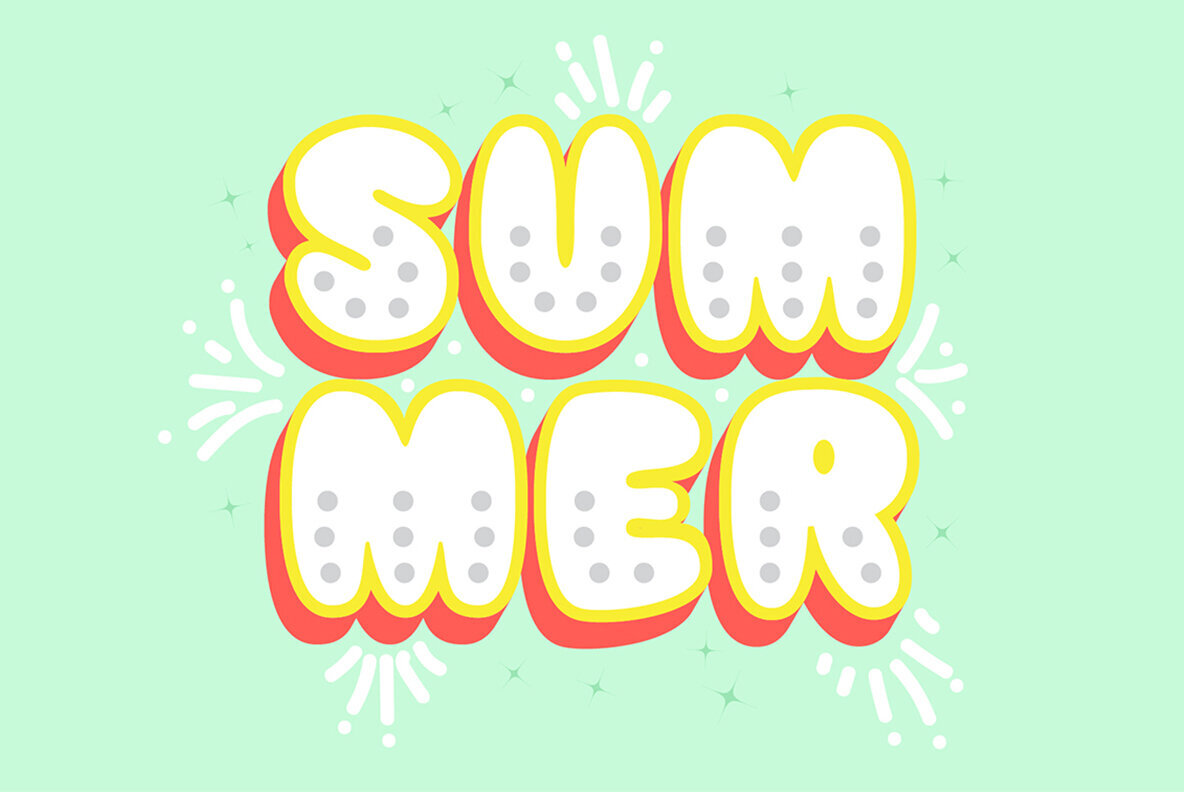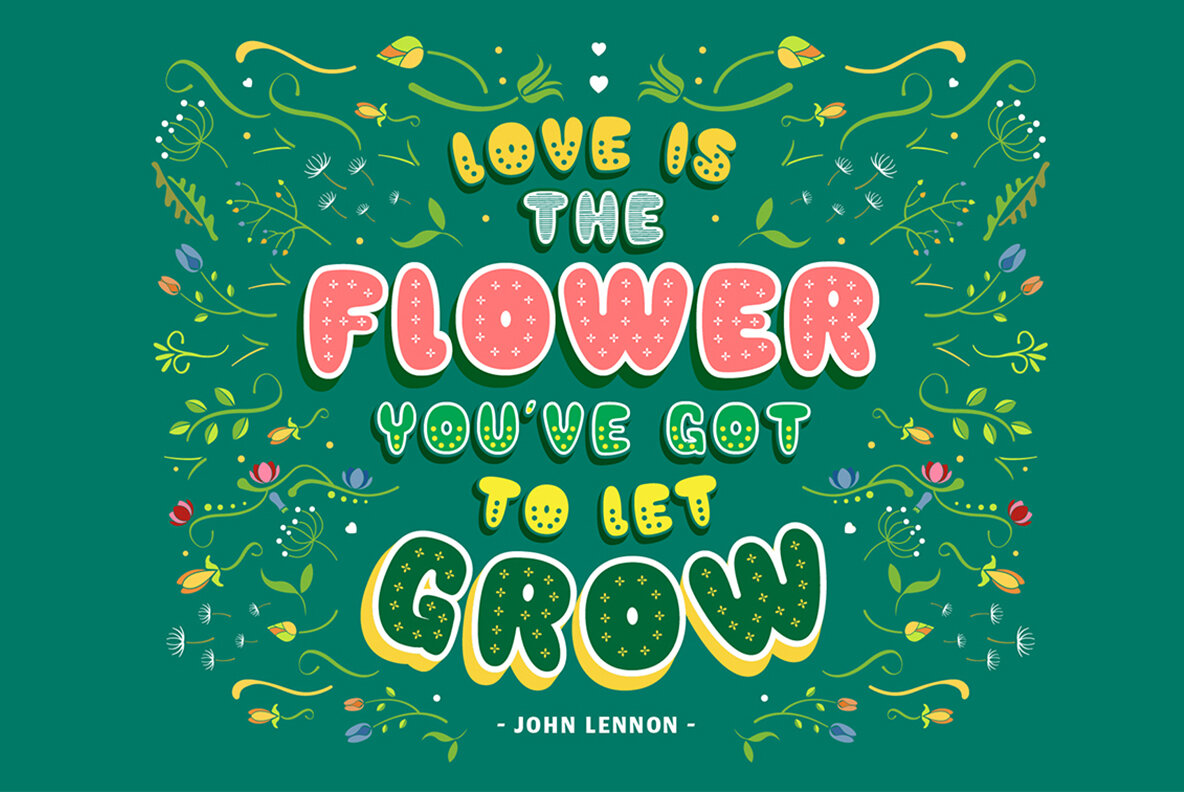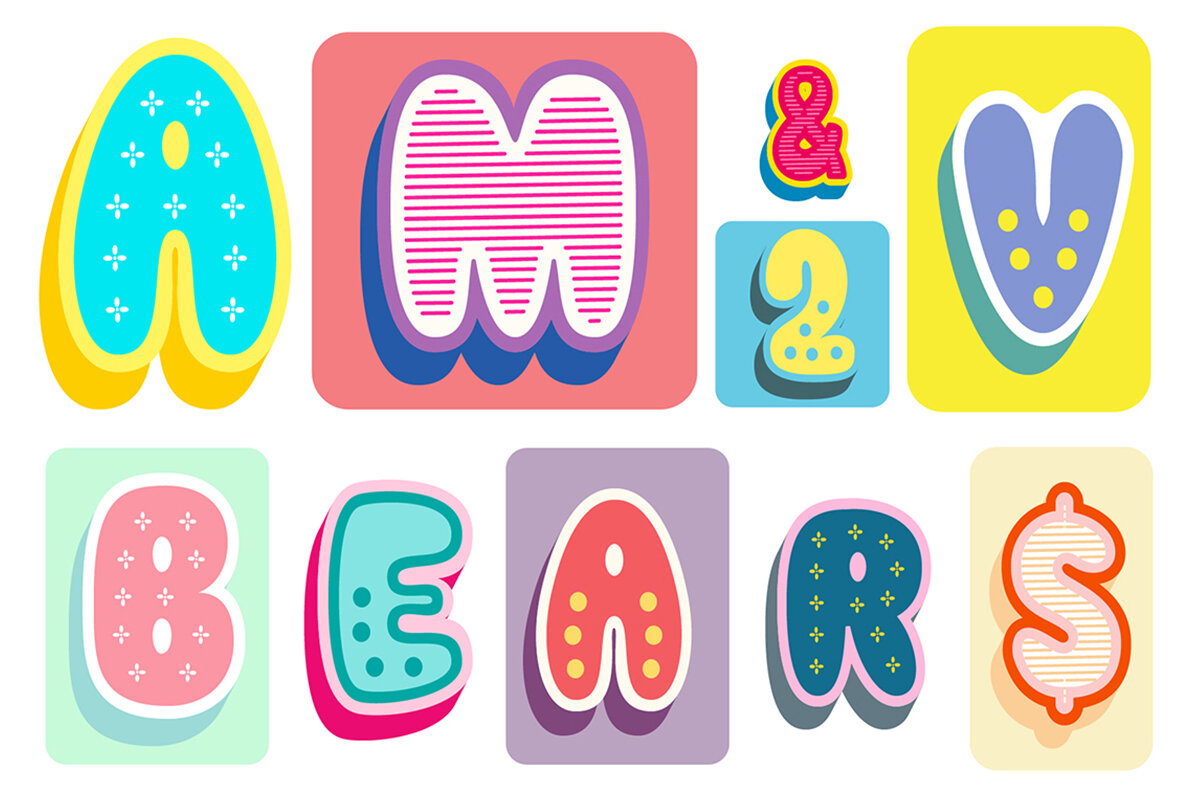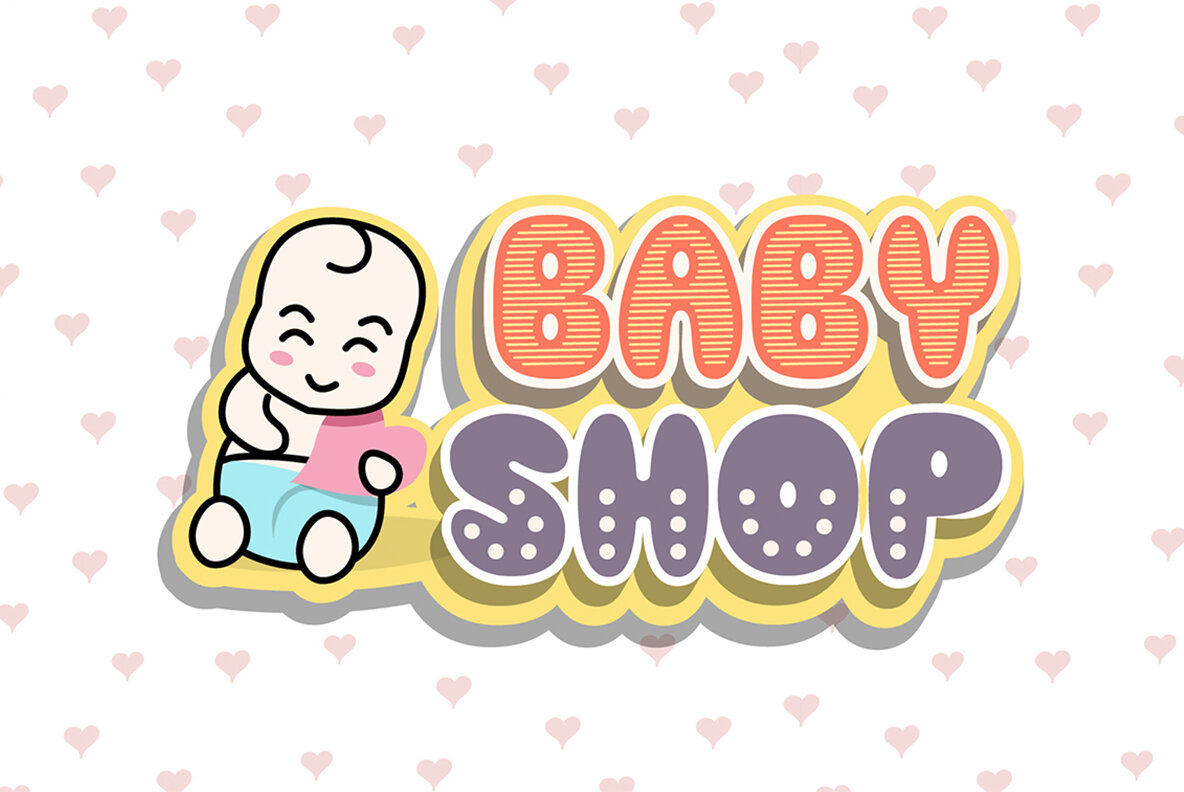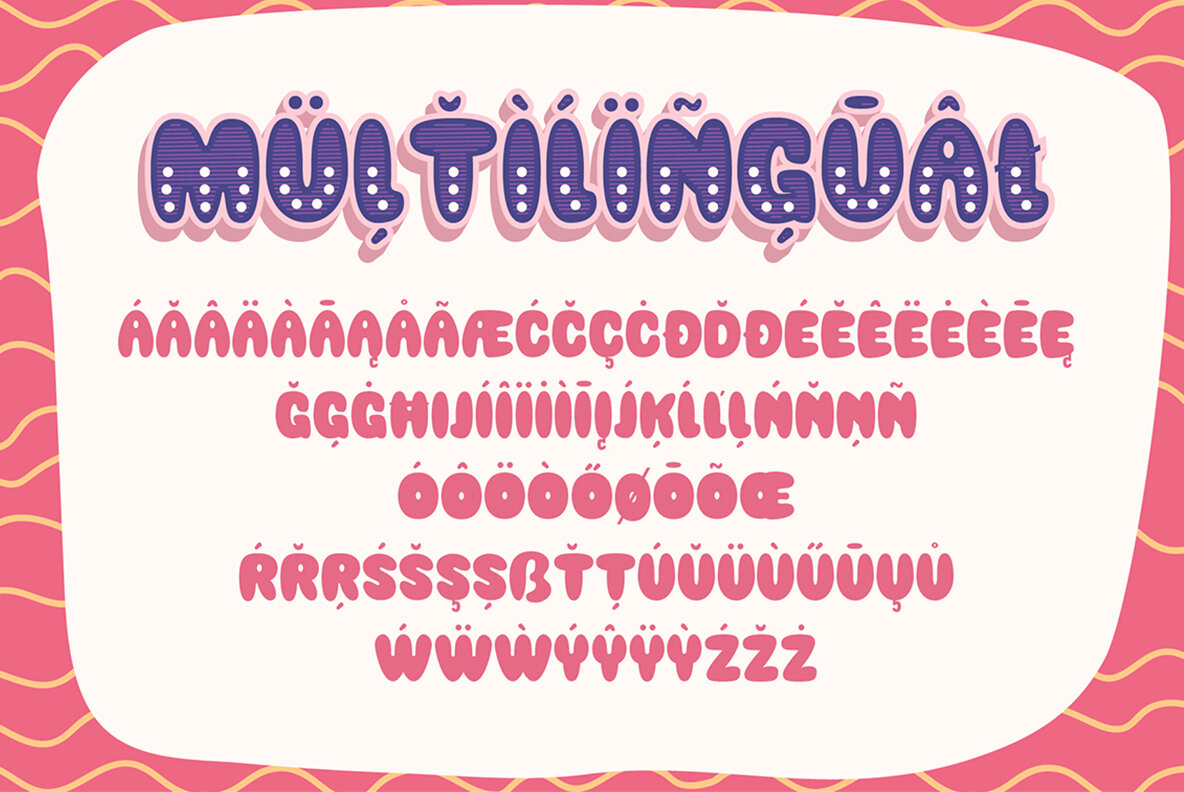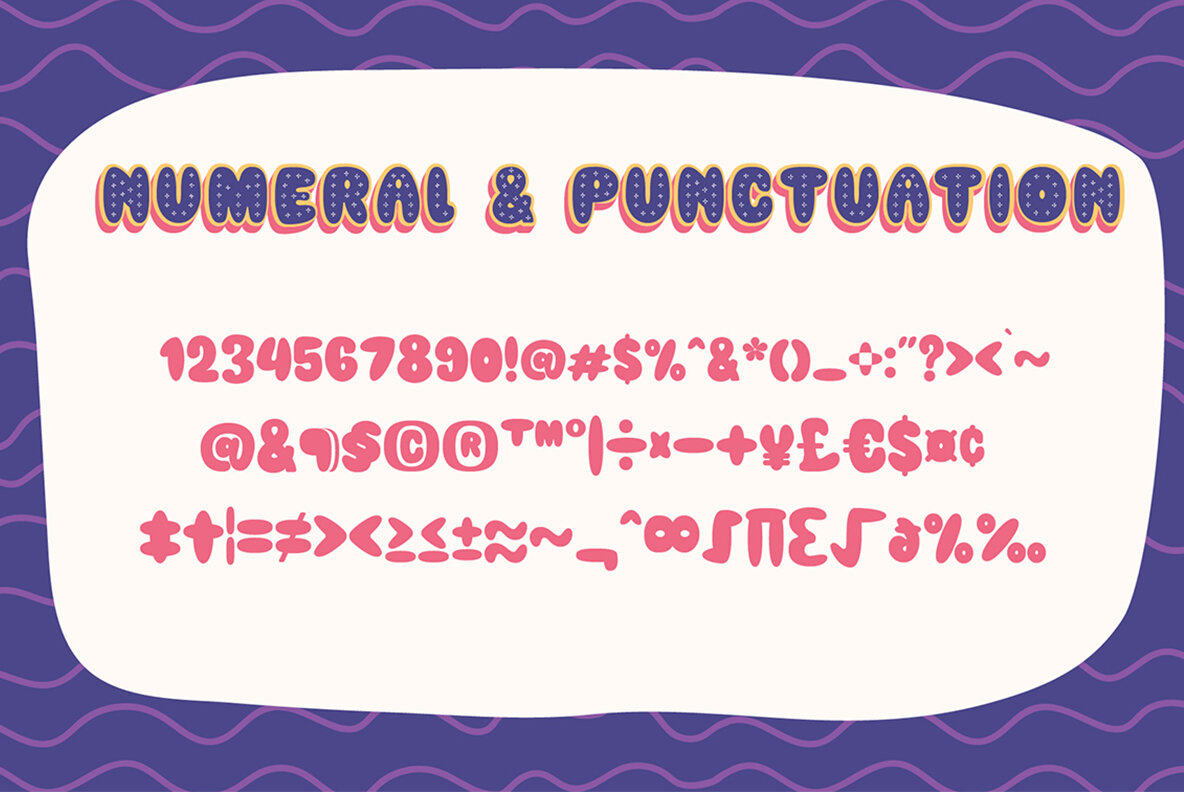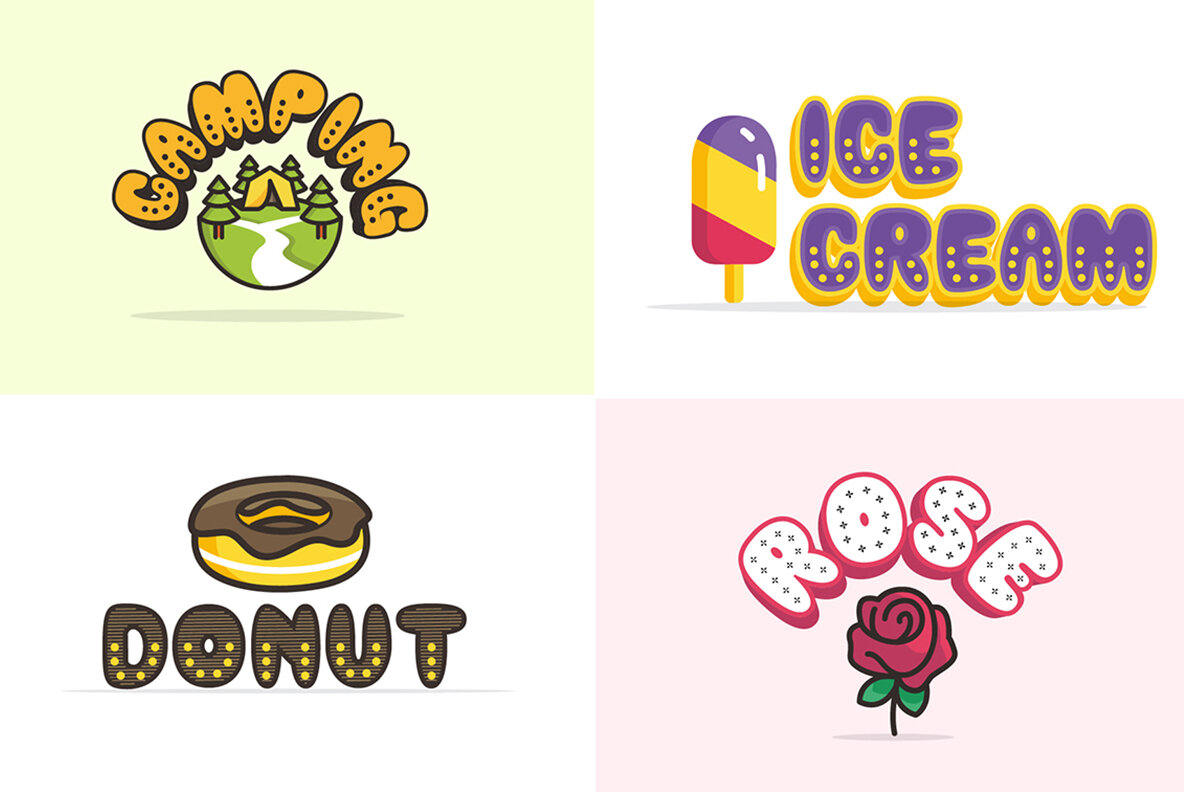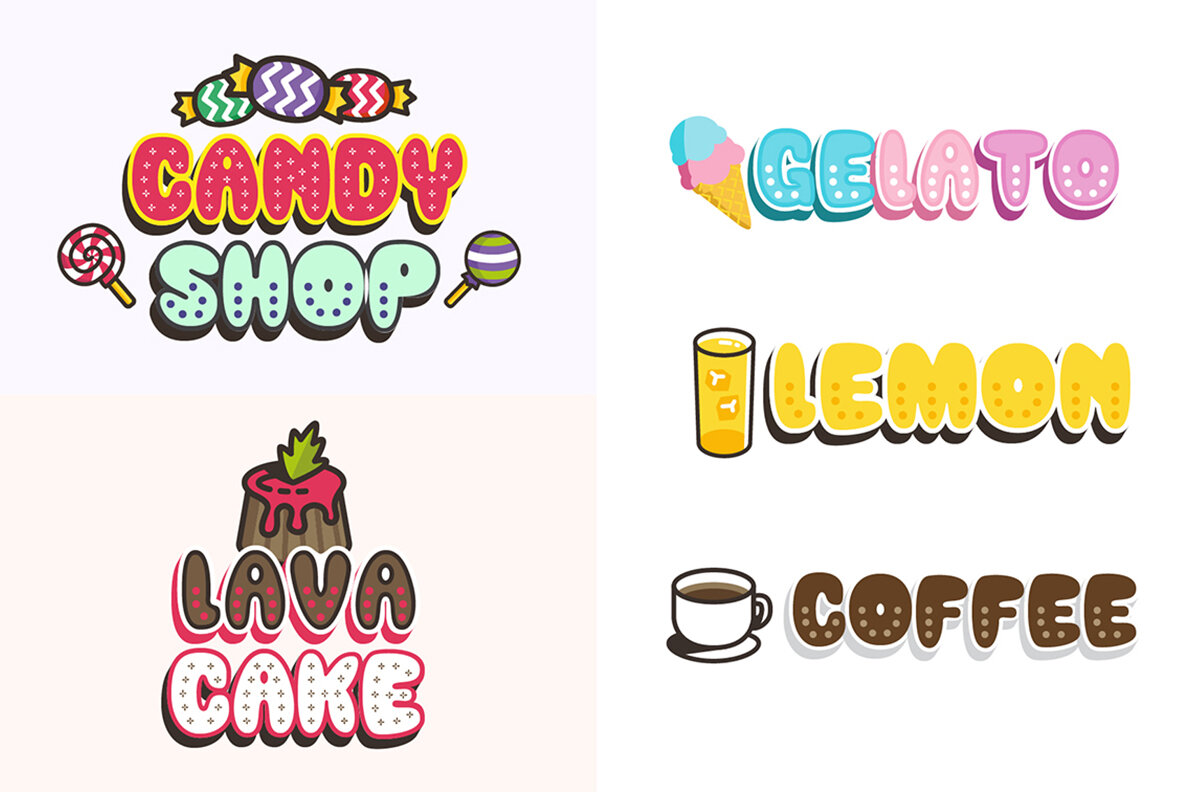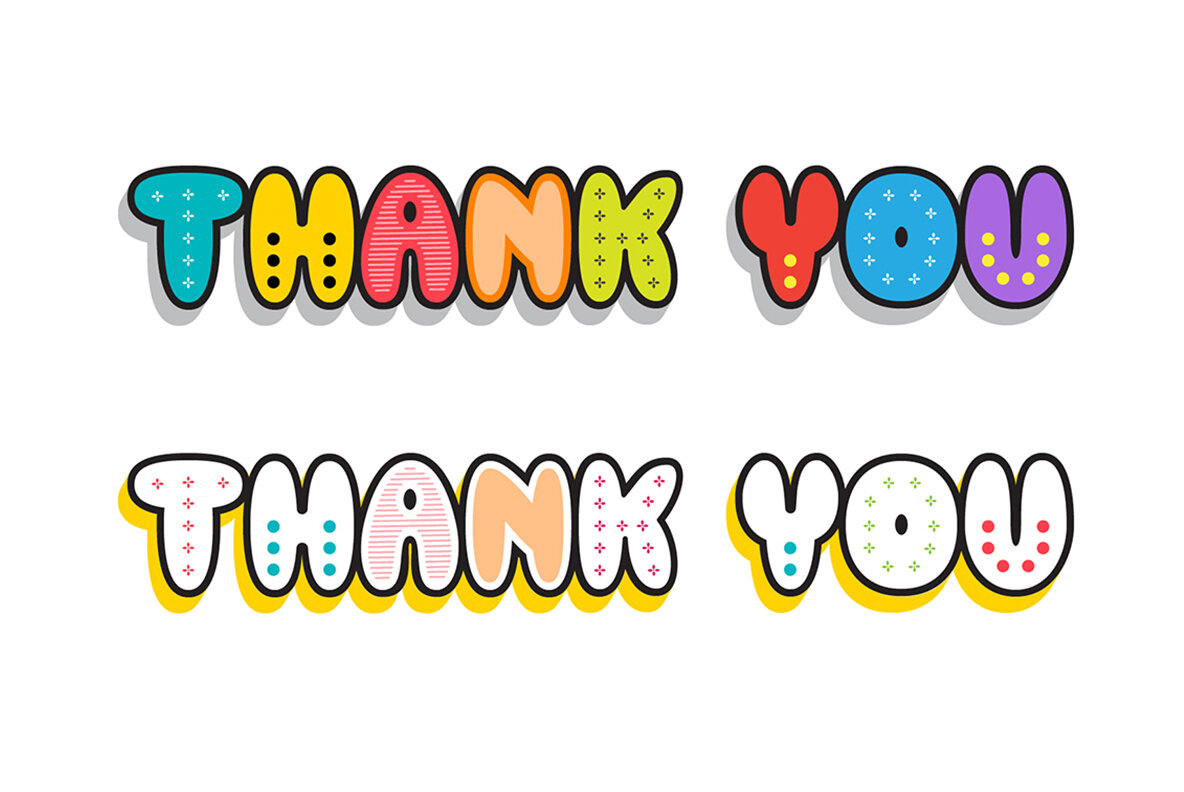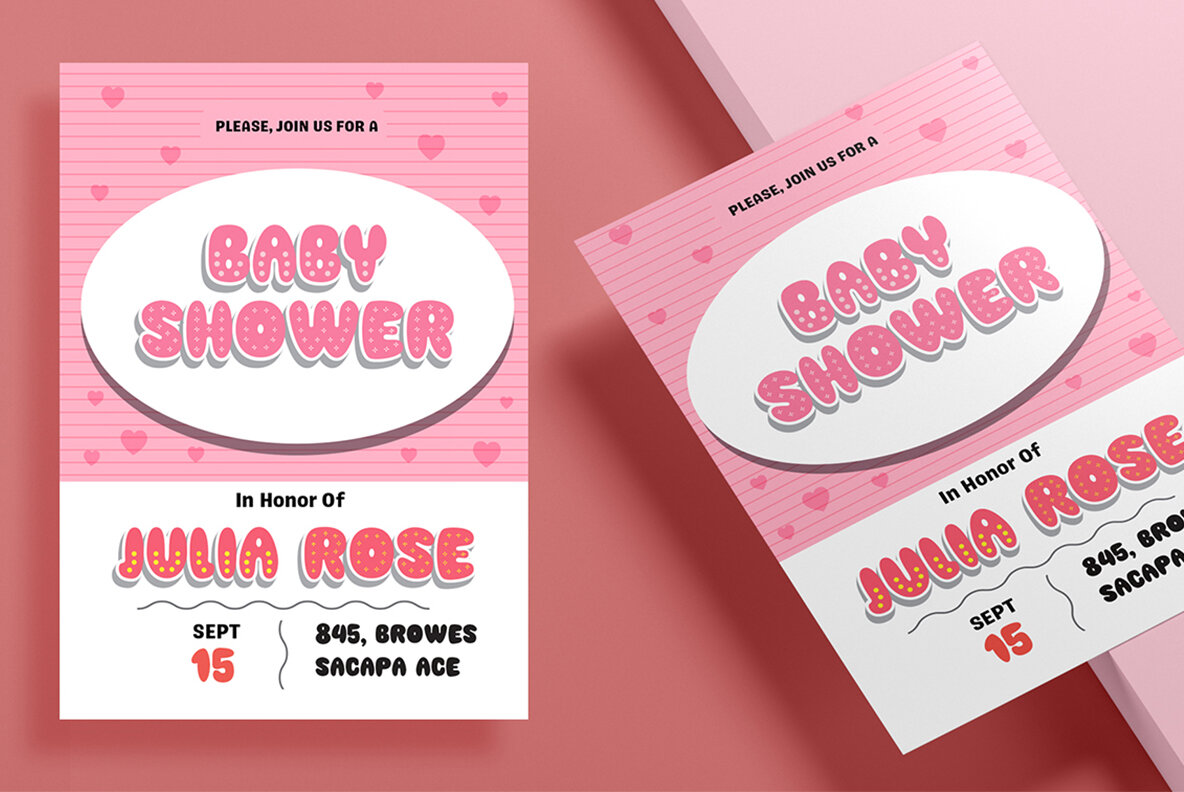
Gemoy Font
Gemoy is an engaging layered rounded typeface that captures creativity with its playful charm. Ideal for projects revolving around children, education, and lifestyle, Gemoy infuses a vibrant essence into titles and headings. The typeface boasts a delightful balance of funk and elegance, providing both lively energy and a touch of sophistication. Its versatile design makes it suitable for every occasion from cafe banners to dessert menus.Gemoy: Playful Layered Typeface for Diverse Design Needs
The Gemoy typeface is more than just letters; it's a creative partner ready to transform your visual presentations and bring joy to your designs.